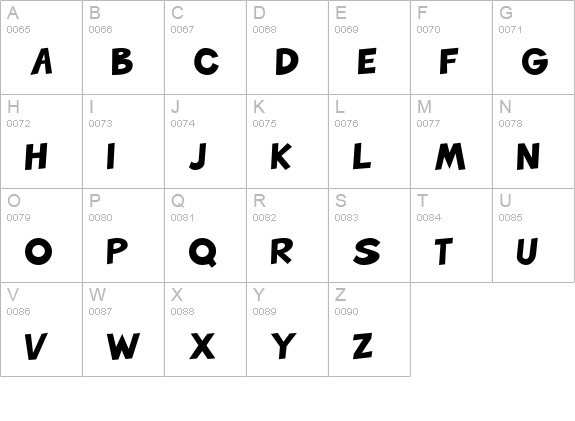
SketchHeavy Regular Font Details
SketchHeavy Regular is the standard, neutral variant in the SketchHeavy typeface family \xE2\x80\x94 well suited to general body text, paragraphs, and standard typographic work.
SketchHeavy Regular is a captivating and dynamic font that embodies the essence of creativity and imagination. With its bold and intricate brush strokes, this font adds a unique touch to any design. Whether you are working on a poster, logo, or any other creative project, SketchHeavy Regular will bring an artistic flair that will captivate your audience. This font is perfect for those seeking a hand-drawn and authentic look. Its irregular lines and imperfect shapes give it a charming and organic feel. Every character in SketchHeavy Regular carries a sense of energy and spontaneity, creating a visually striking and memorable impact. One of the best features of SketchHeavy Regular is that it is freely available to download at FontsMarket.com. This means that you can easily access and utilize this exceptional font without any constraints. Whether you are a professional designer or a hobbyist, you can enjoy the benefits of SketchHeavy Regular without any cost. By using SketchHeavy Regular, you are not only enhancing your designs but also expressing your individuality and creativity. Its versatility allows it to be used in a variety of contexts, from playful and whimsical designs to bold and impactful statements. With SketchHeavy Regular, you have the freedom to explore and experiment, letting your imagination run wild. So why wait? Head over to FontsMarket.com and download SketchHeavy Regular now. Unleash your creativity and elevate your designs with this captivating and freely available font.